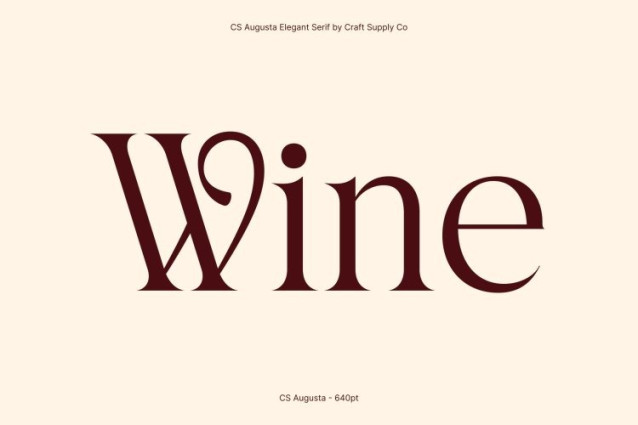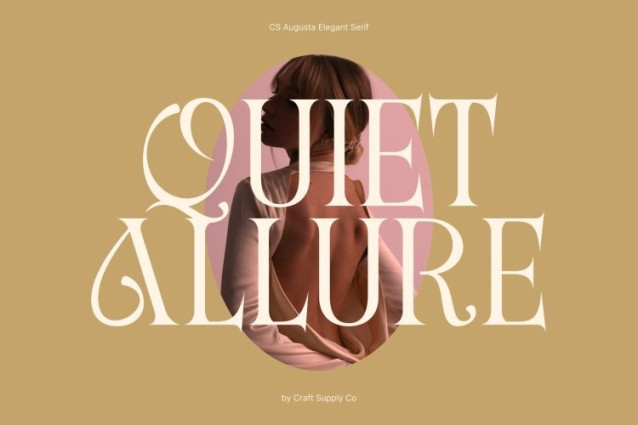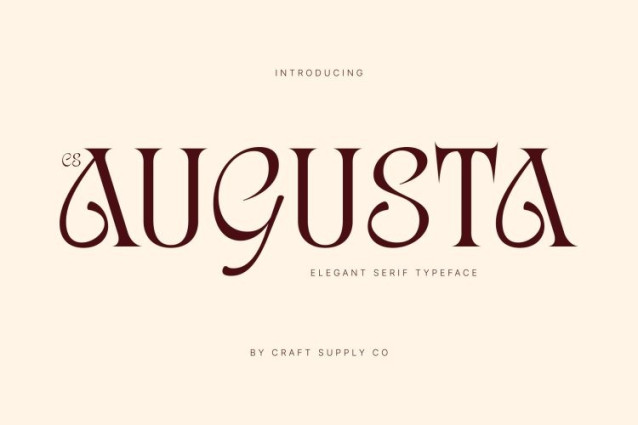
CS Augusta Font
CS Augusta Font This elegant serif font is defined by its smooth, flowing curves that create a beautifully luxurious impression. Each letter is crafted with refined detail, giving the font a polished and graceful character that instantly elevates any design. Its elegant structure captures a sense of beauty, confidence, and timeless style.
Perfect for Books, Editorials, and High-End Design
With its refined aesthetic, this font excels in advanced book layouts, editorial design, magazine titles, and long-form reading materials. The smooth serifs and balanced proportions ensure exceptional readability while maintaining a premium visual tone, making every page feel professionally designed and artistically curated.
Ideal for Packaging and Feminine Branding
Beyond editorial work, this font brings a sophisticated presence to packaging, logos, and branding. Its feminine, soft elegance makes it perfect for beauty products, fashion labels, lifestyle brands, and any design that aims to project charm, luxury, and modern refinement.
Beautifully Crafted for Timeless Elegance
Every curve and serif is thoughtfully shaped to convey beauty and feminine grace. This font blends classic sophistication with contemporary style, offering designers a typeface that feels elegant, expressive, and visually captivating for both print and digital applications.